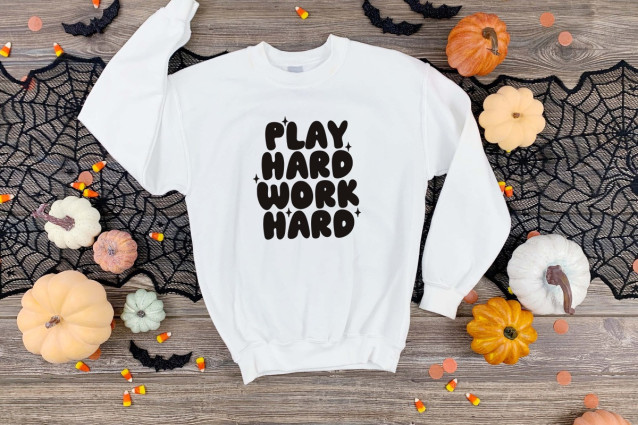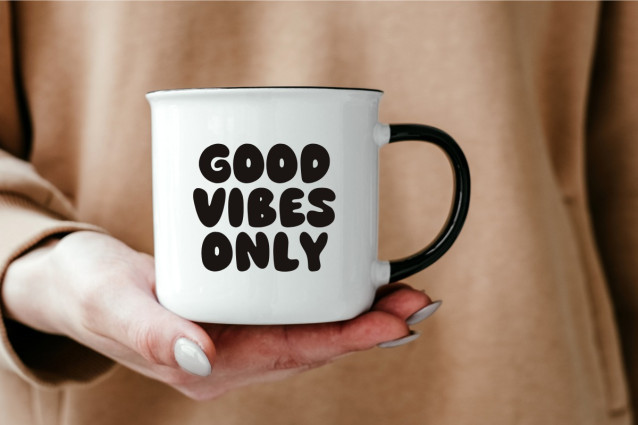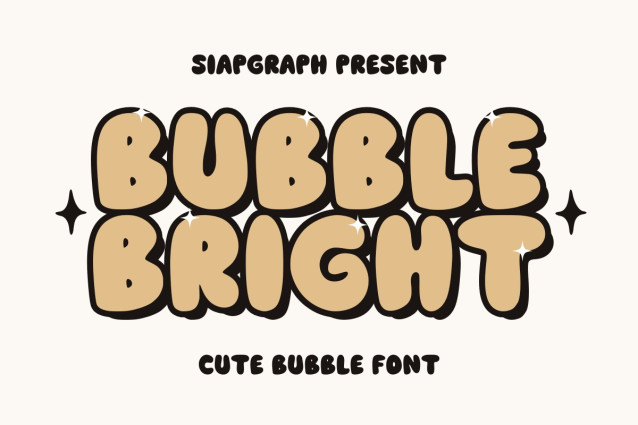
Bubble Bright Font
Bubble Bright Font a bubbly and adorable font full of energy and charm! Its bold, rounded letters with playful highlights are great for kids’ projects, branding, invitations, and any design needing a splash of fun.